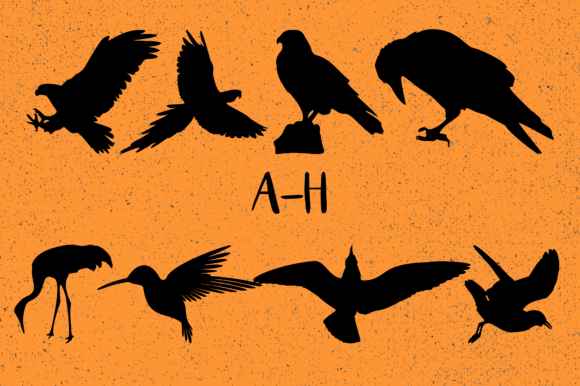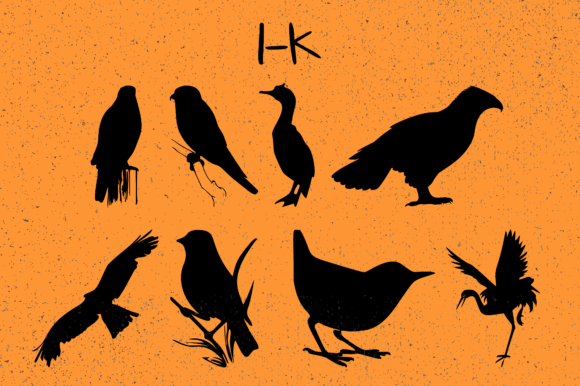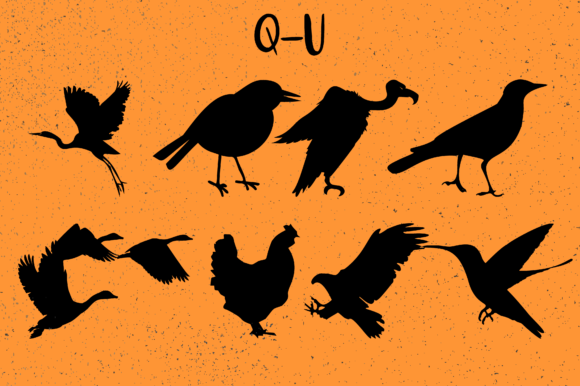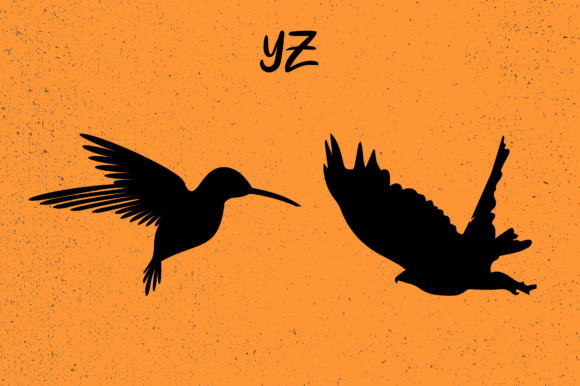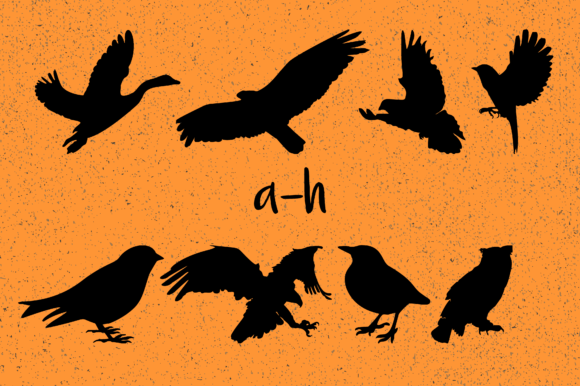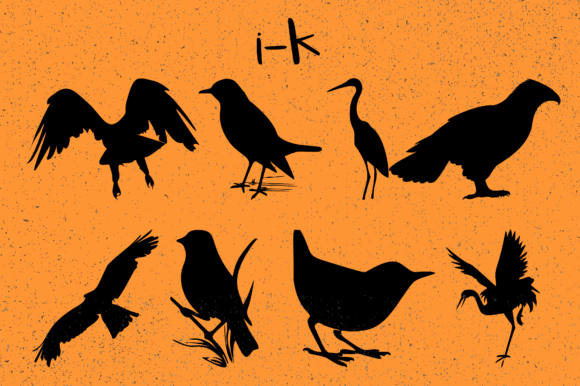
The Perfect Wingman for Your Next Design Project
Have you ever been stuck on a design project, searching for that perfect element to tie everything together? It’s like trying to find the right bird to complete your flock – you know it’s out there, but it’s hard to spot. That’s where the Birds Font comes in – a unique and original dingbats font that’s sure to add a touch of personality to your next branding project.
Whether you’re designing a logo, creating a t-shirt print, or working on a sport design, the Birds Font is a valuable asset in your toolkit. Its versatility and playfulness make it suitable for a wide range of contexts, ensuring that your design stands out from the flock.
As a designer, you know the importance of finding that special something to elevate your work. The Birds Font is that something – a font that’s not only visually striking but also easy to use and customize. So why not give it a try and see how it can take your designs to new heights?
Birds Font Key Features
- Font Family: A unique, hand-drawn font with a natural, organic feel, designed to evoke the freedom and beauty of birds in flight.
- Unique Characteristics: Features a range of bird-inspired flourishes, including wings, feathers, and beaks, adding a touch of whimsy and personality to text.
Birds Font Review
Overall, I’m quite pleased with the Birds Font. It has a certain charm to it, reminiscent of vintage typographic elements.
- ✨ Unique design that stands out from more common fonts: The Birds Font offers a refreshing change from the usual sans-serif and serif fonts.
- ✨ Suitable for creative projects: The whimsical feel of the font makes it perfect for art projects, children’s books, and other creative endeavors.
- ✨ High-quality vector graphics: The font is well-designed and crisp, ensuring that it looks great at various sizes and resolutions.
- ⚠️ Limited legibility at small sizes: The font’s unique design can make it difficult to read at very small sizes, which may be a concern for body text or other applications where legibility is crucial.
- ⚠️ May not be suitable for formal or professional projects: The font’s playful feel may not be suitable for more formal or professional contexts, such as business reports or technical documents.
In conclusion, the Birds Font is a great choice for designers who want to add a touch of whimsy to their projects. However, it’s essential to consider the font’s limitations and choose it wisely.
The Birds Font is perfect for creating whimsical and playful designs, such as:
Children’s book illustrations
Wedding invitations
Party decorations
Remember to experiment with different font sizes, colors, and styles to get the most out of the Birds Font.
Yes, Birds Font is a highly customizable font. You can adjust font sizes, line heights, and letter spacing to suit your design needs. Additionally, the font includes a range of OpenType features, such as ligatures and stylistic sets, which can be accessed through your design application’s font menu.